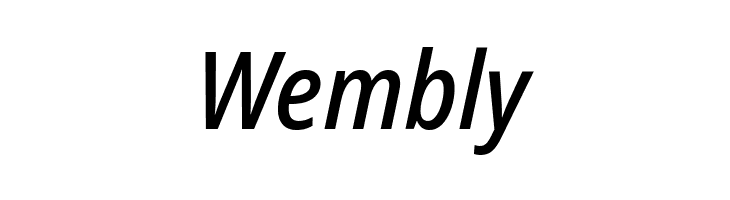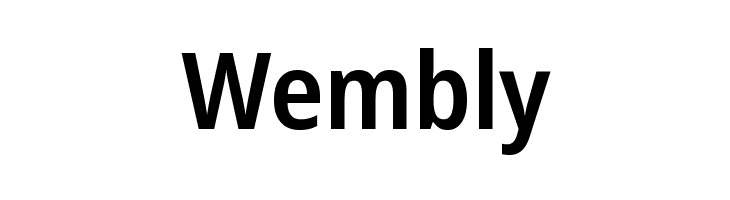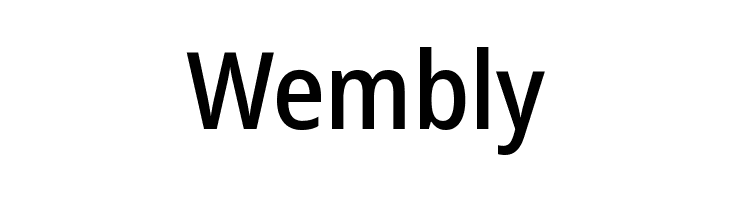
A sleek, semi-condensed, light italic font with a modern and elegant style.
A modern, semi-condensed sans-serif typeface with a clean and versatile design.
A modern, semi-condensed sans-serif font with medium weight and italic style.
A modern, semi-condensed typeface with balanced strokes and clear readability.
A modern, semi-condensed sans-serif font with semi-bold weight and italic style.
A modern, thin sans-serif font with a semi-condensed style.
A sleek, modern, thin italic font with semi-condensed letterforms.
A modern, thin-stroked typeface with a clean and minimalist design.
A sleek, thin, and elegant italic font with a modern aesthetic.
Bold, geometric sans-serif for Ethiopic script.
A bold, clean, and modern font with strong, uniform strokes and geometric shapes.
A clean, modern condensed font designed for the Ethiopic script.
Condensed, bold sans-serif font with modern style.
Bold, condensed sans-serif font for multilingual use.
Condensed extra bold sans-serif font for Ethiopic script.
A modern, condensed sans-serif font with a light weight and clear design.
Condensed sans-serif font for Ethiopic script.
Condensed semi-bold sans-serif font for Ethiopic script.
A clean, modern, and condensed font with thin strokes and high readability.
A clean, modern font with consistent stroke widths and balanced spacing.
A modern, clean sans-serif font supporting the Ethiopic script with excellent readability.